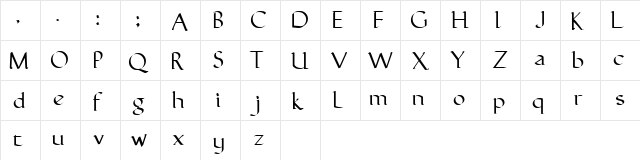
FinalRoman Normal
Design Context for FinalRoman Typeface
FinalRoman is a composed and adaptable typeface that performs quietly and consistently across a wide range of design contexts.